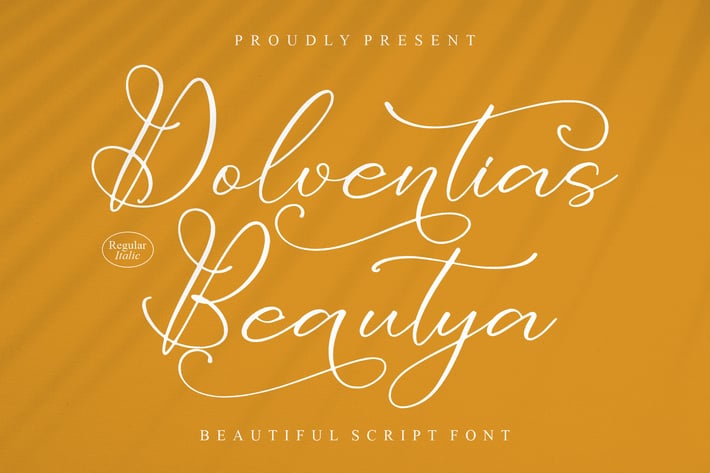
Dolventias Beautya Script Font
Dolventias Beautya is a graceful and elegant script font that shines with its beautiful curves and delicate flourishes. Perfectly crafted for high-end branding, wedding invitations, and elegant signage, this font adds a personal and luxurious touch to any design project.
Elegant, flowing script with ornate details
Includes Regular & Italic styles for versatility
Ideal for luxury projects requiring a personalized touch
Includes stylistic alternates and swashes for enhanced creativity
Wedding invitations and personal stationery
High-end branding, logo design, and packaging
Luxury marketing and social media graphics
Calligraphy and custom signage
Greeting cards and premium print materials